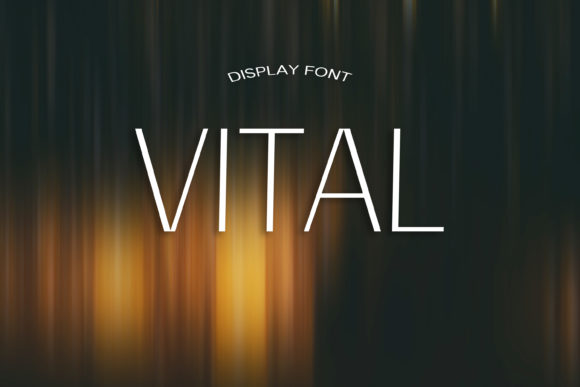
Feast your eyes upon Vital, a luminous display font that will ignite a radiant glow within your designs. Meticulously crafted by the visionary artist, dmytroyarish, Vital embodies a delicate balance of elegance and whimsy, casting an enchanting spell over every letterform.
Immerse yourself in its graceful curves and ethereal strokes, as Vital transports you to a realm of boundless creativity. Let its subtle nuances and playful spirit ignite your imagination, propelling you to design masterpieces that leave an indelible mark.
With Vital as your artistic muse, you'll effortlessly elevate your projects to new heights, captivating audiences with its timeless allure. Whether you seek to craft enchanting invitations, enthralling social media posts, or simply add a touch of magic to your everyday designs, Vital is your font of choice.
Unleash the boundless possibilities that await you with Vital. Embrace its captivating presence and embark on a creative journey where dreams take flight and inspiration knows no bounds. Let Vital be your guiding light, illuminating your path to design brilliance.